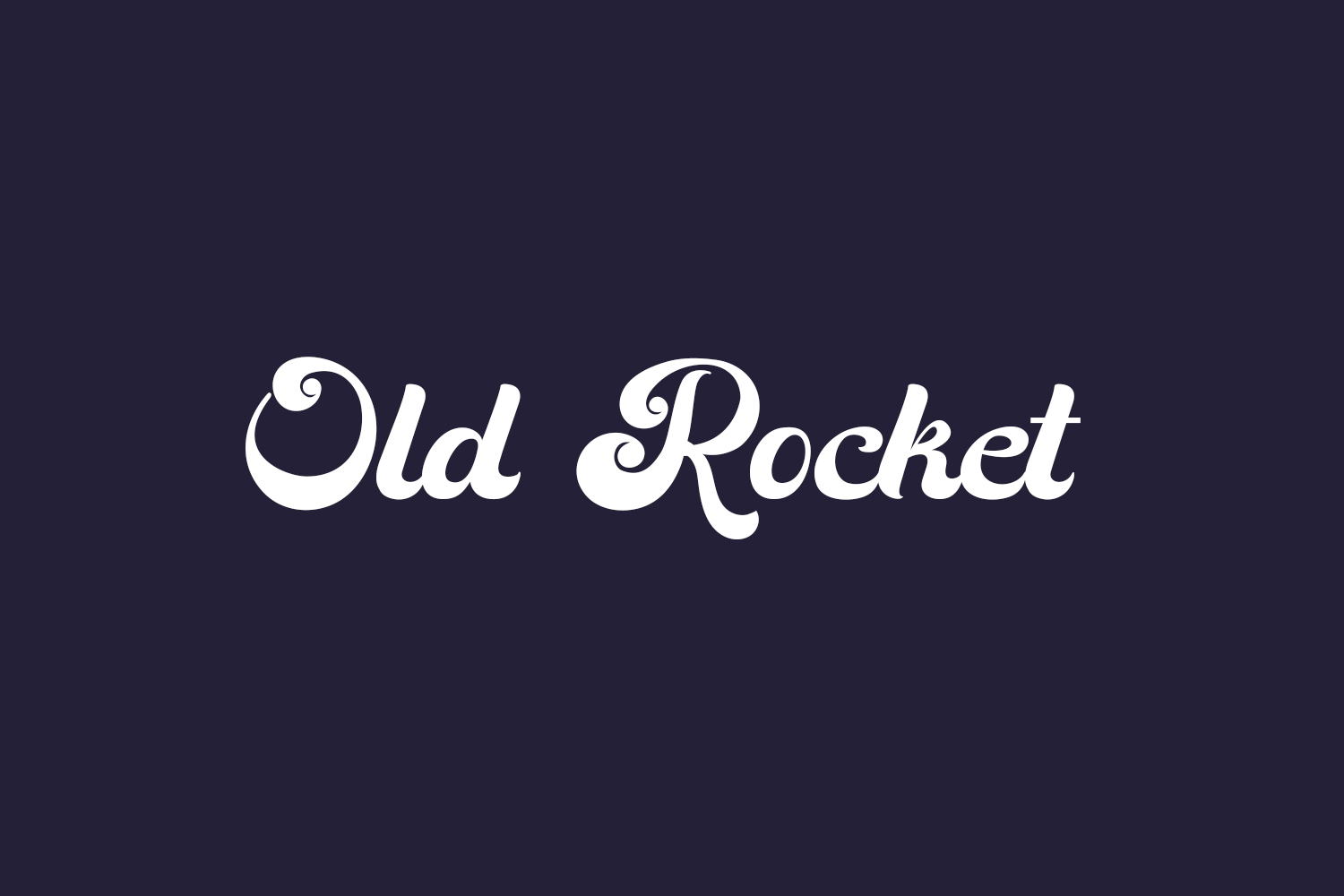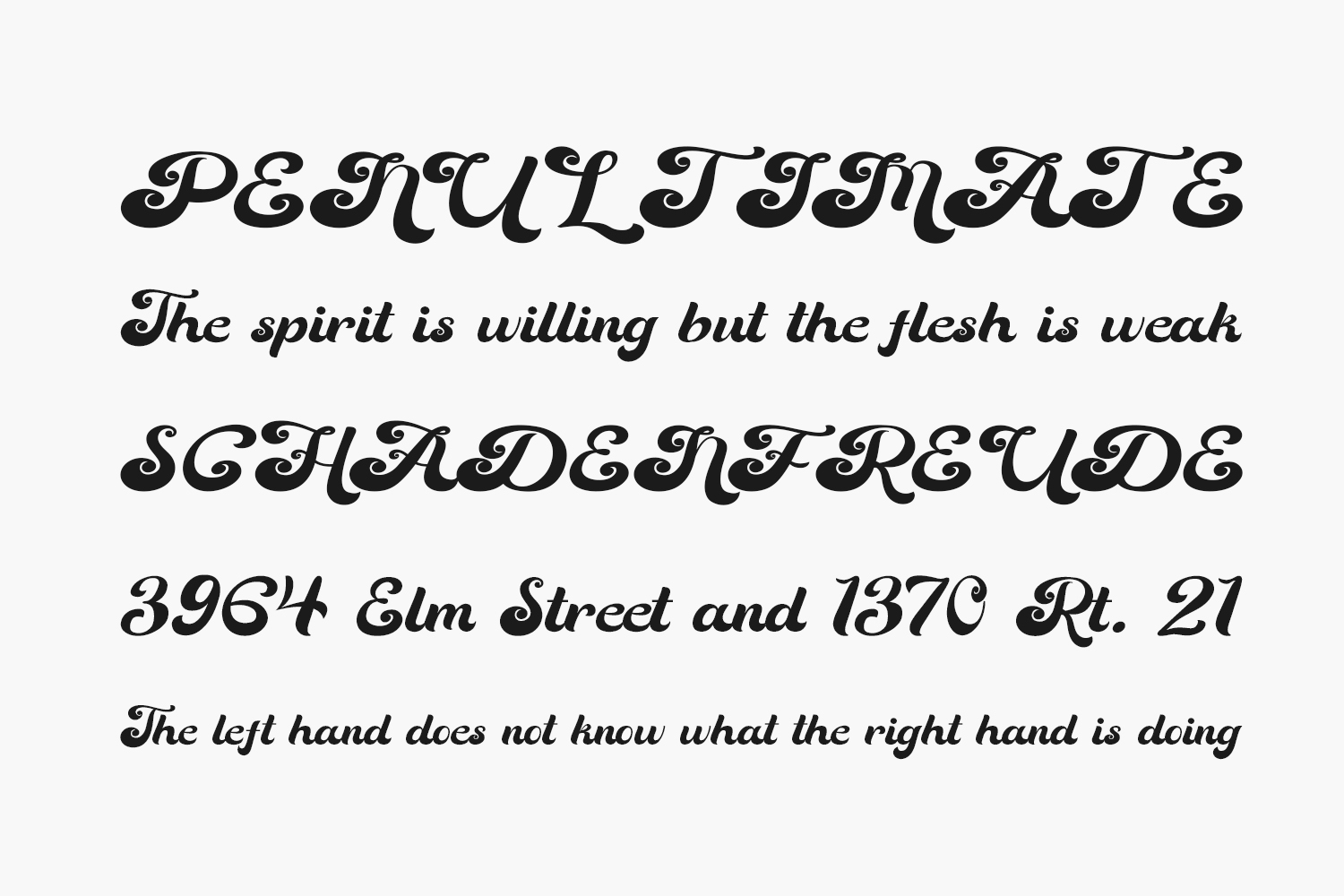
Old Rocket is a lively and expressive retro-inspired script font designed by PutraCetol Studio to bring the bold, nostalgic charm of the 1970s into your creative projects. With its thick strokes, hand-lettered texture, and vintage appeal, this free decorative typeface works perfectly for creating stylish logos, album covers, posters, and branding materials with a throwback feel. Available in TTF and OTF formats — ideal for designers seeking a groovy, hand-drawn look that blends character with clarity.
Why Choose Old Rocket?
- Vintage-Inspired Style: Combines expressive strokes and subtle irregularities for an authentic 70s-style handwriting aesthetic.
- Ideal for Retro Branding: Perfect for vintage logos, music albums, or event posters needing a nostalgic tone.
Where to Use Old Rocket?
Old Rocket shines across a variety of design applications:
- Logos & Branding: Adds personality to brand identities for retro cafes, vinyl labels, or vintage lifestyle brands.
- Poster & Billboard Design: Designed for large sizes — makes headlines pop in concert flyers or themed banners.
- Album Covers: Brings nostalgic energy to LP sleeves, band names, or music merchandise designs.
- Social Media Graphics: Creates bold text overlays for Instagram Stories, TikTok videos, or YouTube thumbnails with a retro twist.
- Packaging Design: Ideal for product tags on vintage apparel, collectible items, or boutique food packaging with a nostalgic touch.
Design Tips with Old Rocket
- Glyphs: 448 glyphs including uppercase (A-Z), lowercase (a-z), numerals, punctuation, and alternate characters
- Language Support: English, Spanish, French, German.